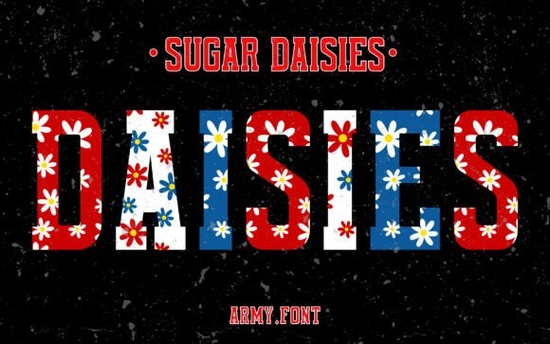
The Sugar Daisies Font is a patriotic typeface that blends colorful daisy-inspired letterforms with a red, white, and blue palette. It's built for Fourth of July projects, Independence Day invitations, and any creative work that celebrates freedom and national pride. If you need a font that looks festive without extra design effort, this one brings color and character right out of the box.
Before you buy, though, there are a few things worth knowing about this festive typeface and where it works best.
What Projects Work Best With This Font?
The Sugar Daisies Font shines in seasonal and patriotic designs. Here are some practical uses:
- Party invitations – Fourth of July BBQs, fireworks viewing events, and community celebrations
- Print-on-demand products – t-shirts, tote bags, mugs, and stickers for the summer selling season
- Social media content – patriotic-themed Instagram posts, Facebook banners, and story graphics
- Commemorative pieces – veteran appreciation designs, military family tributes, and memorial projects
- Handmade crafts – scrapbook pages, greeting cards, and gift tags
Small business owners can also use it for seasonal marketing materials like flyers, sale banners, and email headers during the July 4th shopping period.
How Does It Compare to Other Decorative Fonts?
Colorful, decorative fonts have grown in popularity for projects that need visual impact. Each one brings a different mood and style to the table.
The Sugar Daisies Font is more niche by comparison. Its patriotic theme and floral details make it a go-to for seasonal work rather than everyday design. If you're building a library of decorative fonts, having one specifically for national holidays is a smart addition.
Is It a Good Pick for Print-on-Demand Sellers?
Seasonal fonts can drive real sales for POD businesses. Independence Day is one of the top retail events in the U.S., and themed designs consistently perform well in June and early July.
Here's why this font is worth considering:
- Built-in color – the red, white, and blue palette is already part of the design, which saves production time
- Unique style – the daisy details set it apart from generic patriotic typefaces
That said, the software limitation is real. If you design primarily in Canva or similar platforms, you'll need an alternative approach or a different font for those tools.
Quick Tips for Working With This Font
- Use it at larger sizes. Decorative fonts like this one lose detail when scaled down too much. Keep it for headlines and display text.
- Pair it with a clean sans-serif. Body text should be simple and readable so the Sugar Daisies Font stays the focal point of your design.